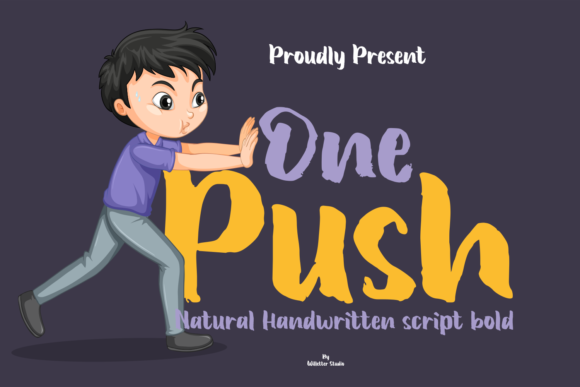
Introducing the enchanting One Push font, a cinematic masterpiece that will bring your storytelling visions to life! Crafted by the skilled hands of Willetter Studio, this script font exudes an irresistible charm and undeniable elegance.
One Push is the epitome of effortless style, its flowing strokes and chunky letters dancing harmoniously across the page. Each character is imbued with a touch of whimsy and sophistication, making it the perfect choice for capturing the essence of movie scripts and other captivating narratives.
With One Push, you'll effortlessly create captivating movie scenes, evoke vivid emotions, and transport your audience into the heart of your storytelling adventures. Its enchanting curves and dynamic shapes will lend a touch of magic to your creative projects, leaving an unforgettable mark on your viewers.
Embrace the cinematic allure of One Push today and unleash the full potential of your creativity. Let its enchanting characters guide your imagination, evoke profound emotions, and paint unforgettable stories on the screen. From epic landscapes to intimate dialogues, One Push will be your unwavering companion, transforming every word into a captivating cinematic experience.